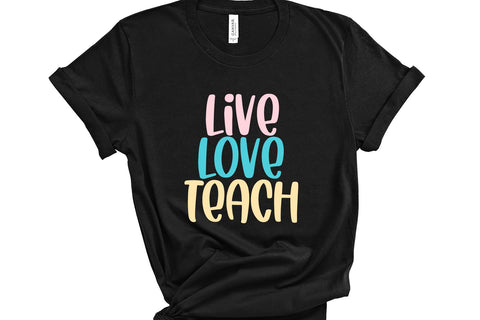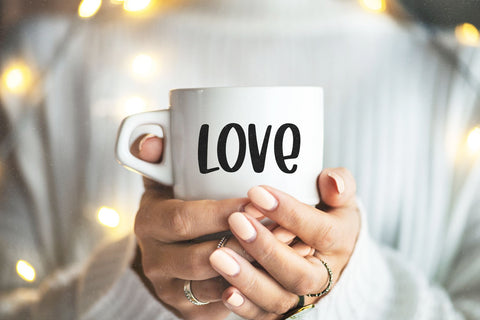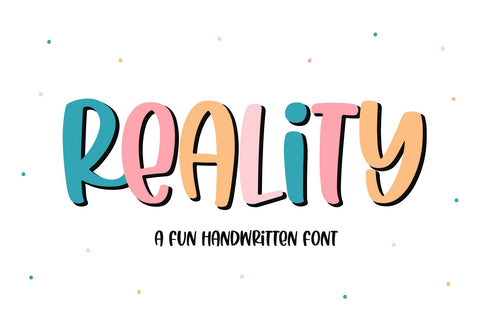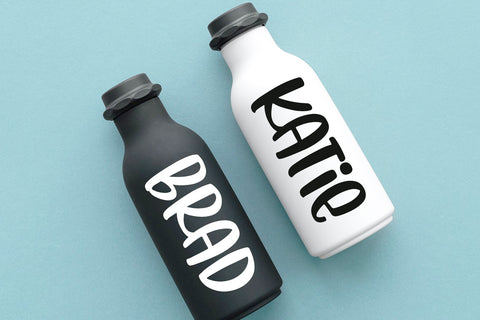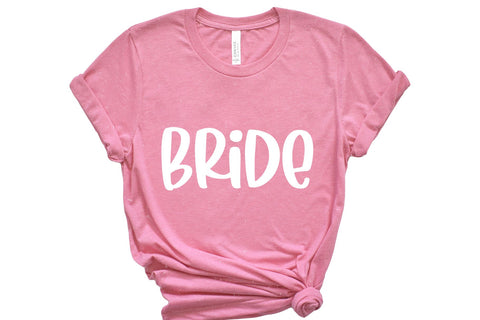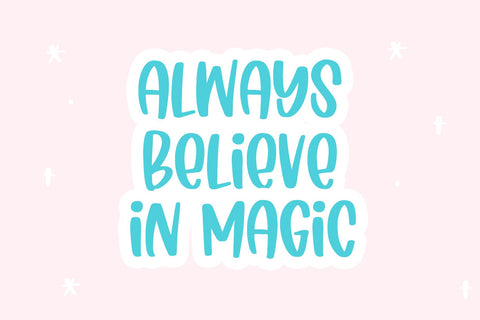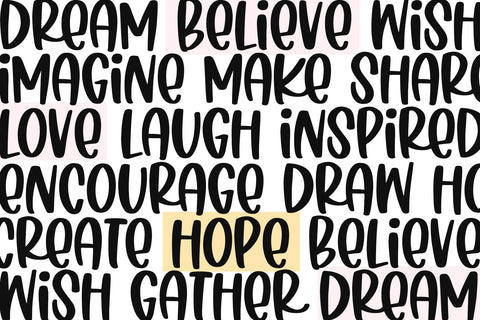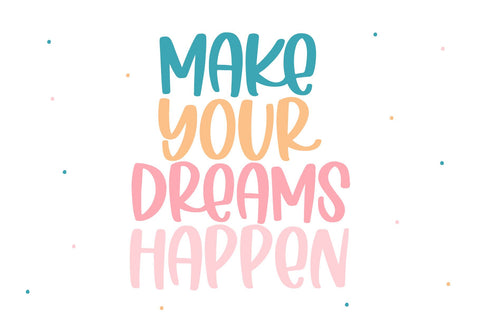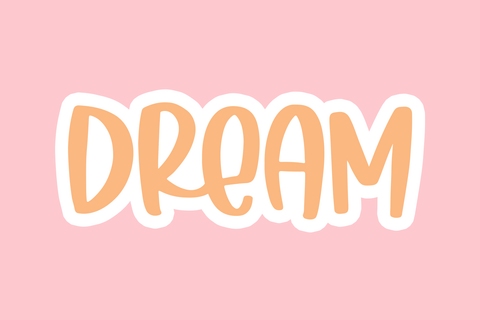
Reality - Fun Handwritten Font
Reality is a handwritten font with big, quirky letters. It is an ALL CAPS font.
This font is perfect for shirt designs, svg designs, stickers, craft projects and more!
This font does include accent characters.